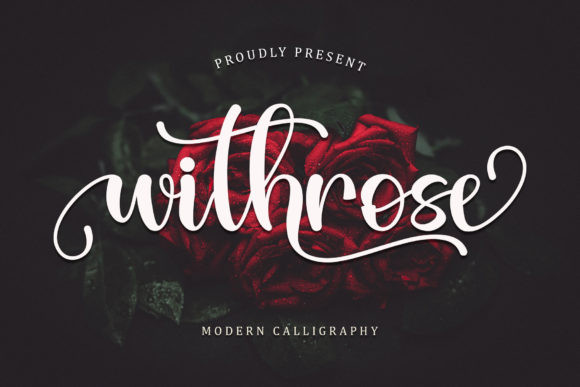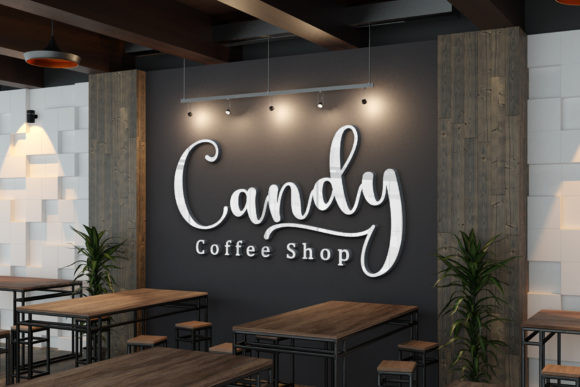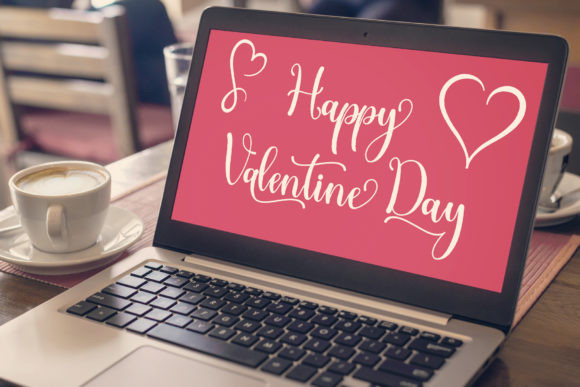
Withrose Font
Withrose FontWithrose is a romantic and elegant handwritten font. Its distinct and well rounded letters make this font a masterpiece. Fall in love with its incredibly versatile style and use it to create spectacular designs!